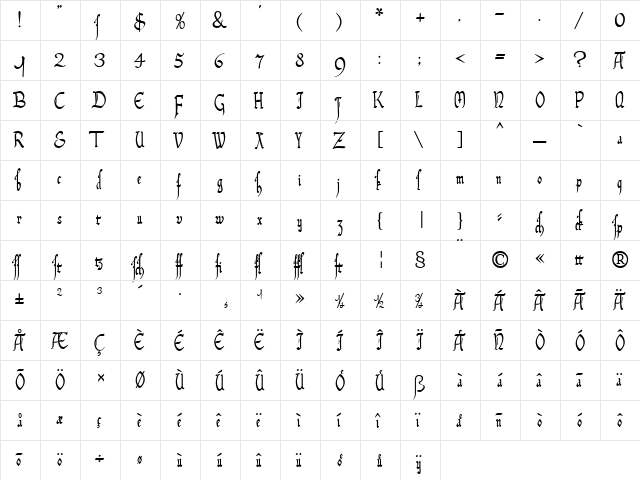
MA Urkunde Normal Font Preview
MA Urkunde Normal
Design Context for MA Urkunde Typeface
MA Urkunde is a composed and adaptable typeface that performs quietly and consistently across a wide range of design contexts.